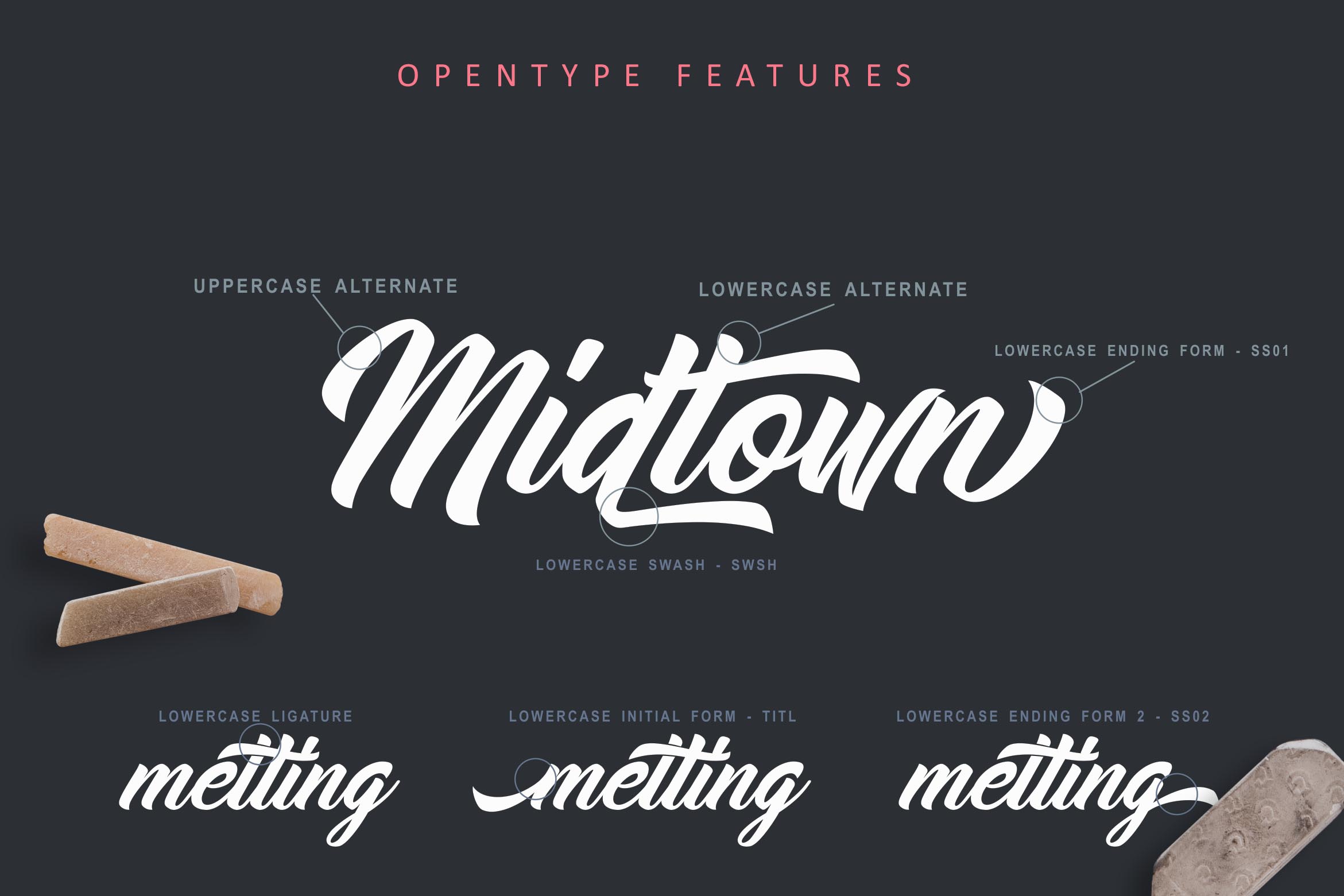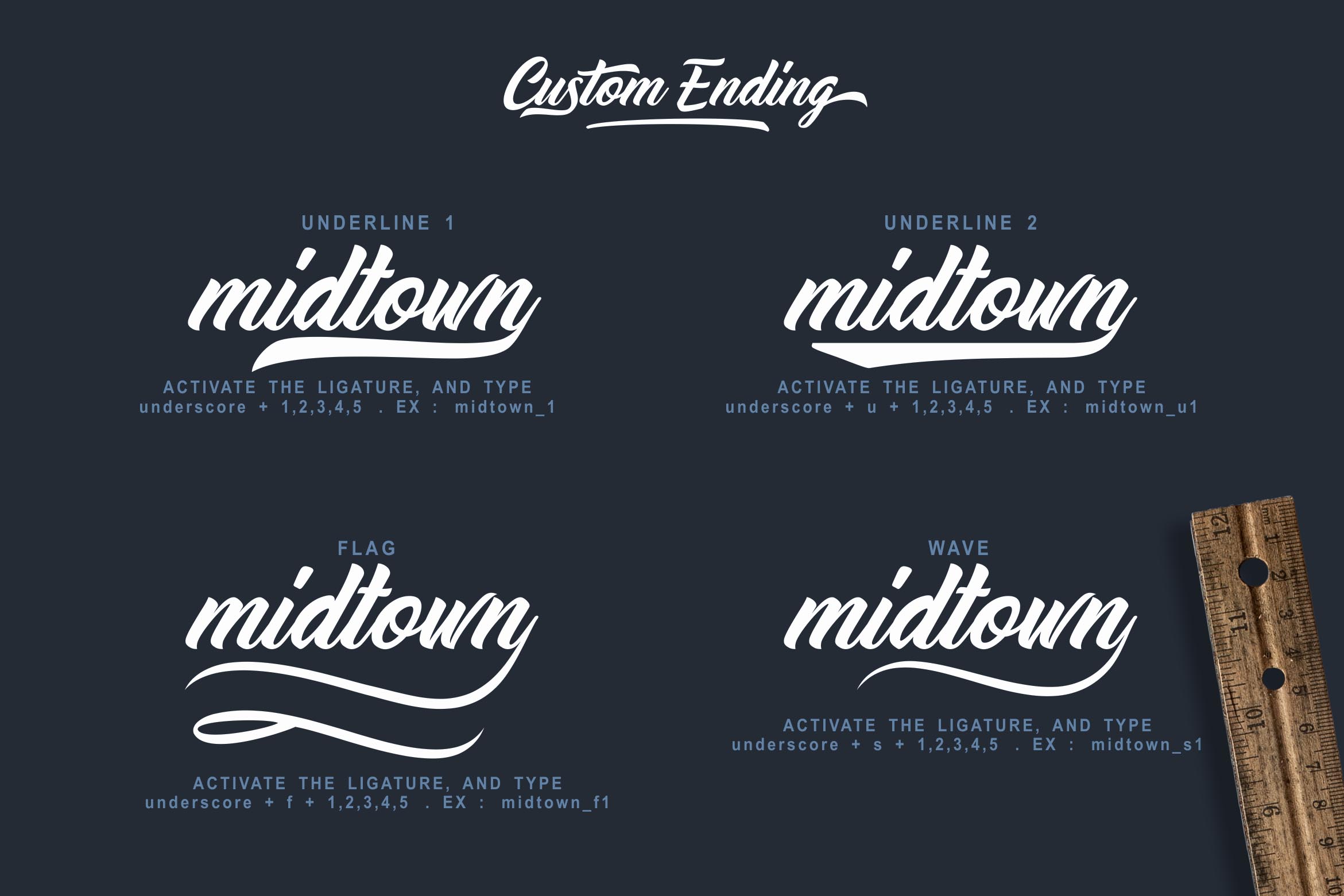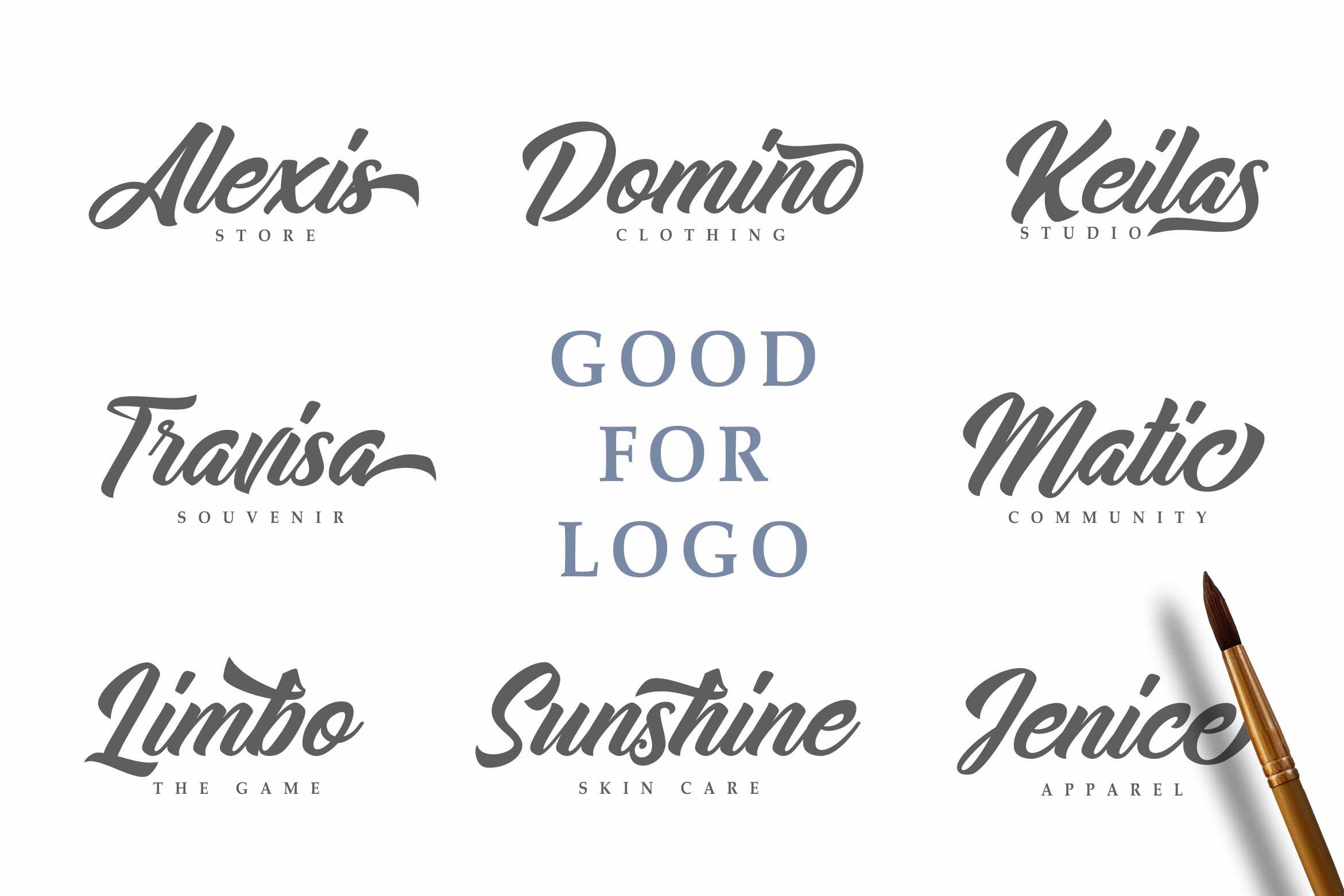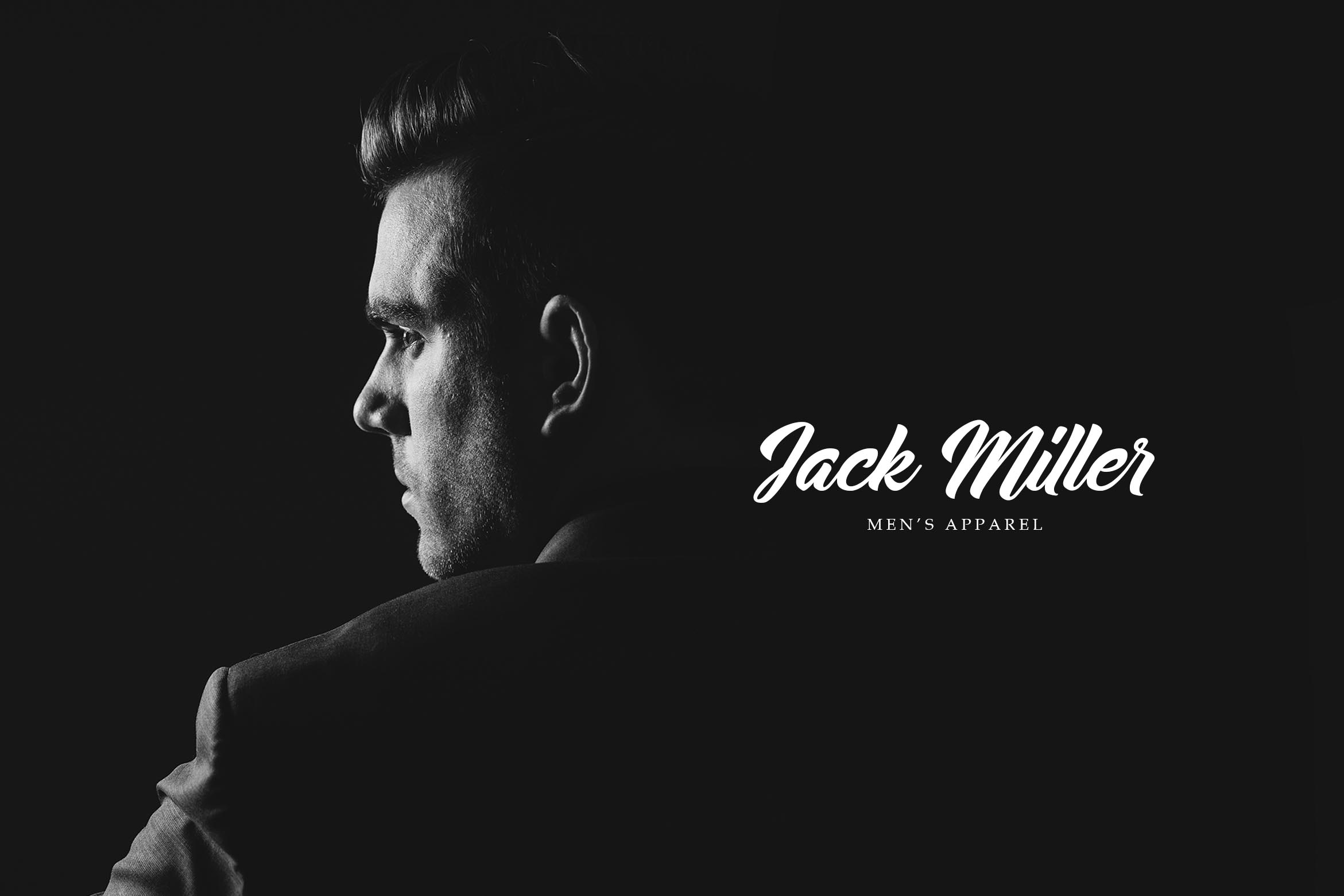
HomeScript FontsMidtown Script Font Script Fonts Midtown Script Font FacebookXPinterestWhatsApp Midtown Script Font Poster 2 Midtown Script Font Poster 3 Midtown Script Font Poster 4 Midtown Script Font Poster 5 About Midtown Script Font Midtown Script is a modern hand-crafted font. It’s dynamic and has stunning OpenType features. DOWNLOAD NOW People also explored Bella Belly Font Sakeso Font Celinetta Font Papercute Inline Font Oyscake Font Perfect Orchid Font Huzlenut Font Hiestoria Font Cimiez 311 0 TagsMidtown Script Font Previous articleNatron FontNext articleBackyard Garden Font LEAVE A REPLY Cancel reply Comment: Please enter your comment! Name:* Please enter your name here Email:* You have entered an incorrect email address! Please enter your email address here Website: Save my name, email, and website in this browser for the next time I comment. Personal Use Free Gaboed Personal Use Free Read more about this font Coolvetica Font Personal Use Free Read more about this font Krabuler Personal Use Free Read more about this font Fillguy Font Personal Use Free Read more about this font BLOG Elegant Wedding Invitation Fonts – Handwritten & Script Fonts Elegant Wedding Invitation Fonts Your wedding day is one of the most important moments of your life, and every detail matters—including your invitation design. Our... Exploring Font Trends Transform Your Website: Elevate Your Typography with 7 Best Web Font Generators Top 7 Google Fonts Alternatives for Faster and Privacy-Friendly Web Design (2025)